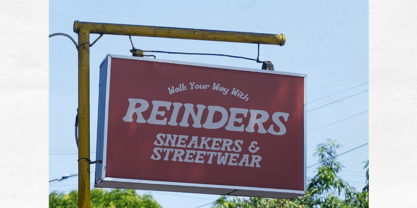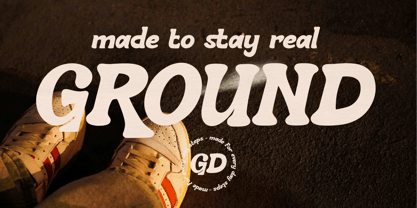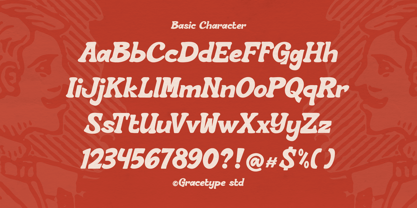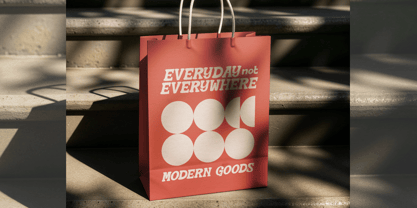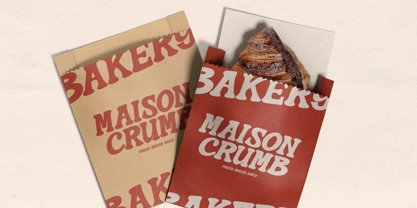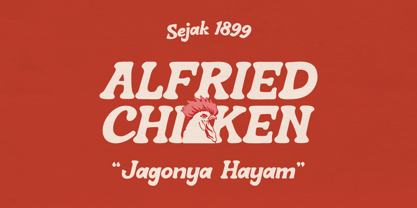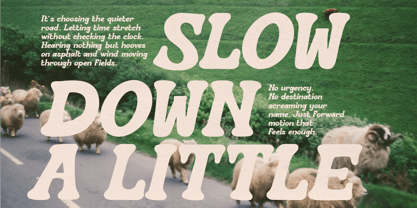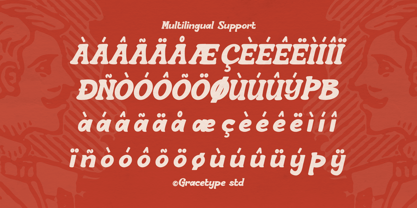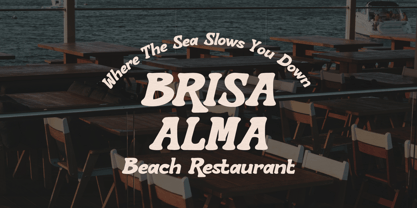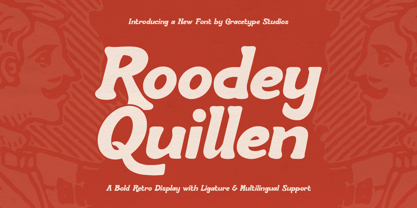
Roodey Quillen
The Roodey Quillen Font Family was designed by and published by Tini Fitriani. Roodey Quillen contains 1 styles. More about this family
Roodey Quillen | Bold Retro Display, from Gracetypestudio, suitable for any projects such as: logos, branding projects, homeware designs, product packaging, mugs, quotes, posters, shopping bags, t-shirts, book covers, name card, invitation cards, greeting cards, label, photography, watermark, special events, and all your other lovely projects that need a Hand Drawn taste.